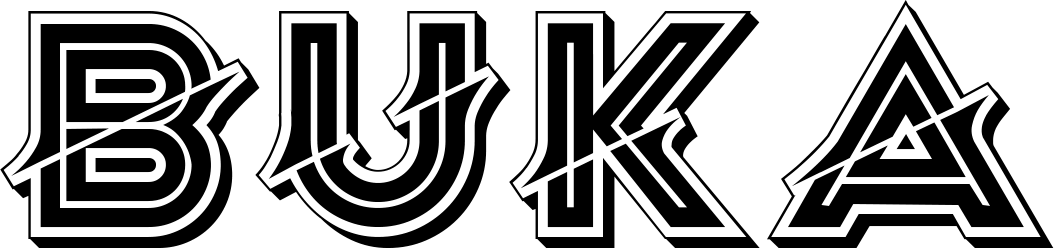
Buka Font
For covering a wide range of cartoons, posters, apps, album covers, and clothing refer to the newer font that can handle multiple vibes at once. Nearby, you encounter the distorted font incorporating an amazing design.
While maintaining its old look, its bold design can make the future appear before your eyes. Despite the lack of lowercase letters, the adventurous points of this Buka font make it striking and enticing to the maximum attention of any reader.